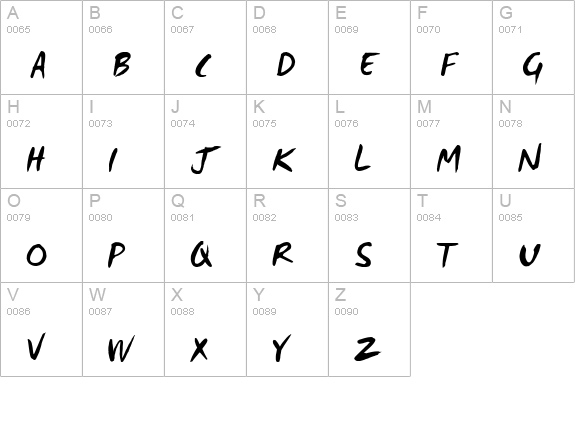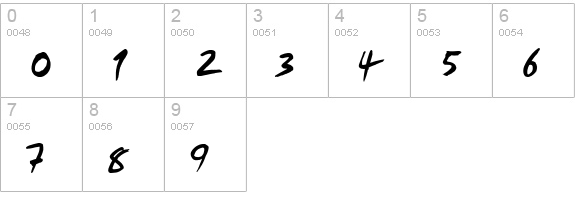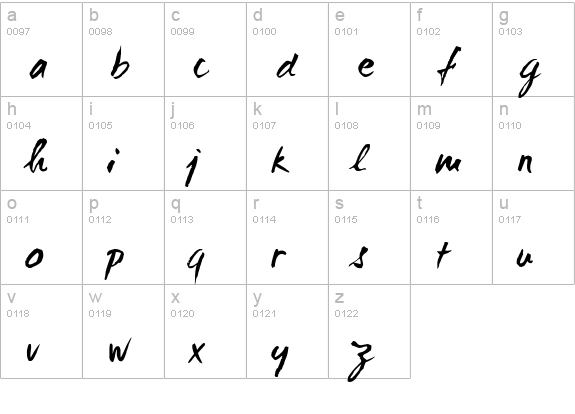
WC Mano Negra Bta Font Details
WC Mano Negra Bta font is a striking and bold typeface that exudes a sense of strength and power. Its unique design combines sharp edges with smooth curves, creating a visually captivating effect that is sure to make a statement. This font is perfect for projects that require a strong and impactful presence, such as logos, headlines, posters, and more. One of the standout features of WC Mano Negra Bta font is that it is available for free. Yes, you read that right! This font is freely available to download at FontsMarket.com. Now, you can add a touch of boldness and character to your designs without having to spend a dime. With its versatility and eye-catching design, WC Mano Negra Bta font is sure to elevate your creative endeavors to new heights. Whether you're a professional designer or an enthusiast looking to make a statement, this font is a must-have in your collection. So why wait? Head over to FontsMarket.com and get your hands on WC Mano Negra Bta font today. Download it for free and unleash its power in your designs. Don't miss out on this incredible opportunity to enhance your creative projects with a font that truly stands out.